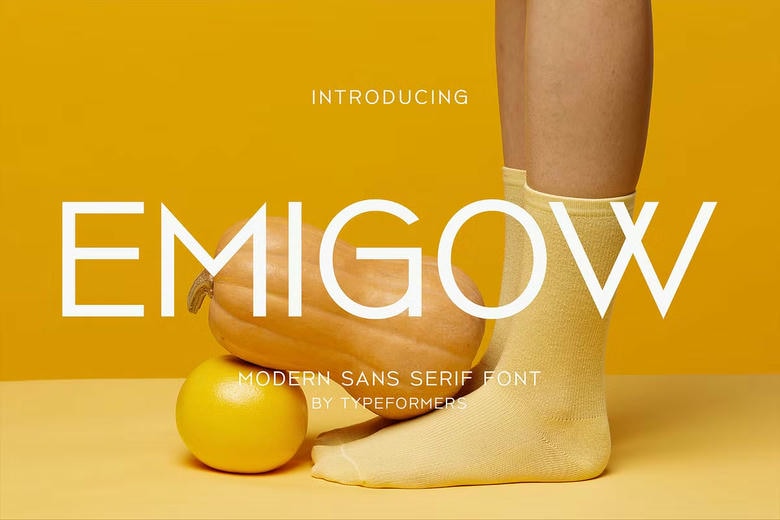
Emigow Font
Emigow – Modern Sans Serif. Emigow is a modern and simple font, best used as a display for headings, logos, branding, magazines, product packaging and invitations.
Emigow Sans Serif Font